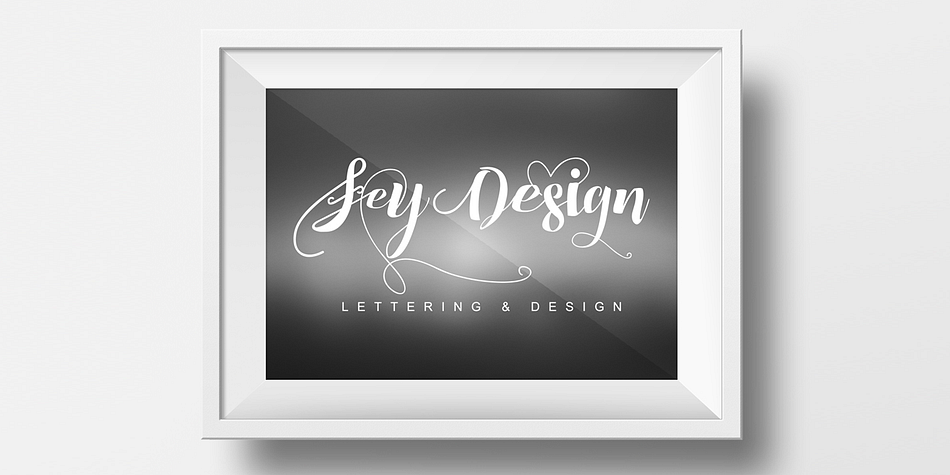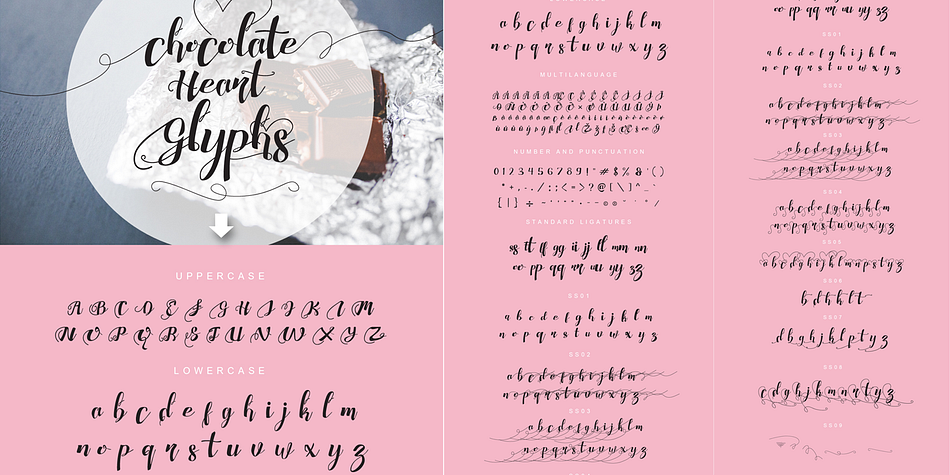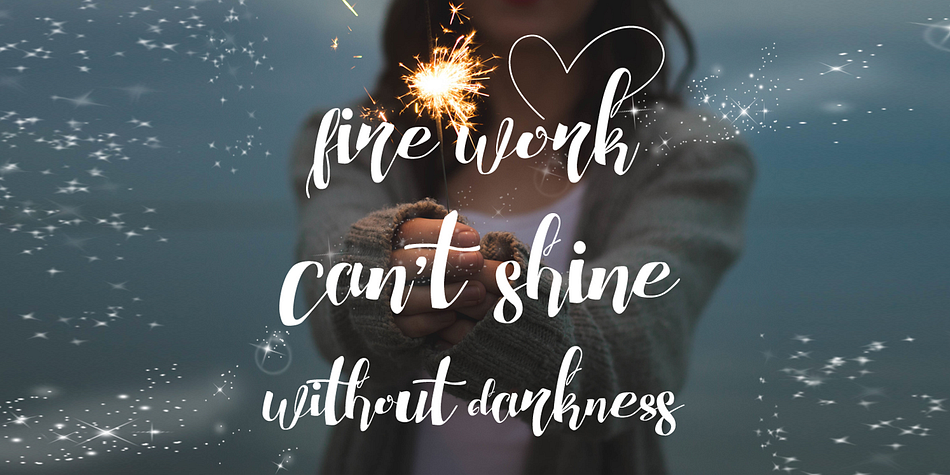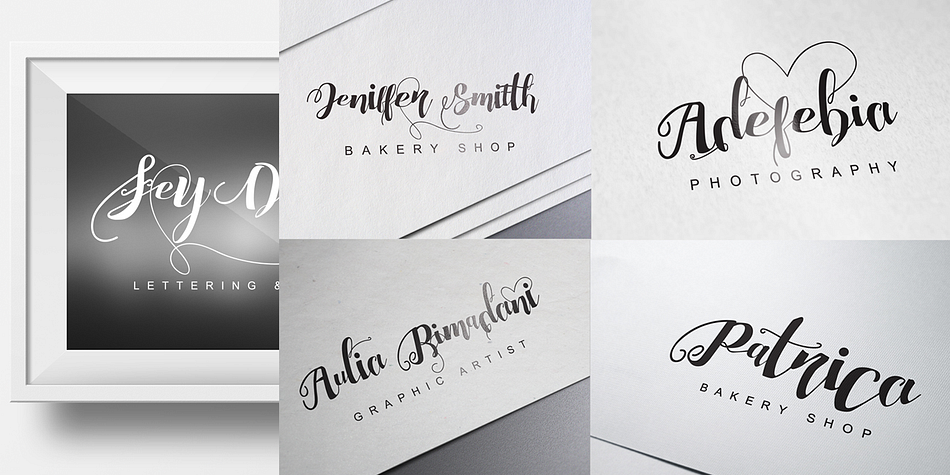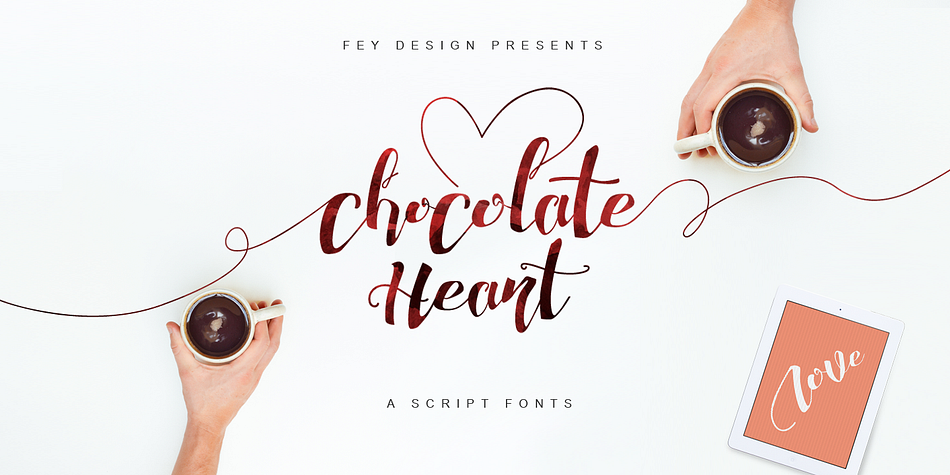
Chocolate Heart is a dingbat and modern calligraphy font family. This typeface has nine styles and was published by feydesign.
Chocolate Heart is suitable for design, element design, weddings, events, t-shirts, logos, badges, stickers, and any other awesome work.
- Combination alternative ligature fonts
- Standard Ligatures, Stylistic Set, Multilanguage Characters
- Modern Calligraphy Typeface
- Unique style fonts